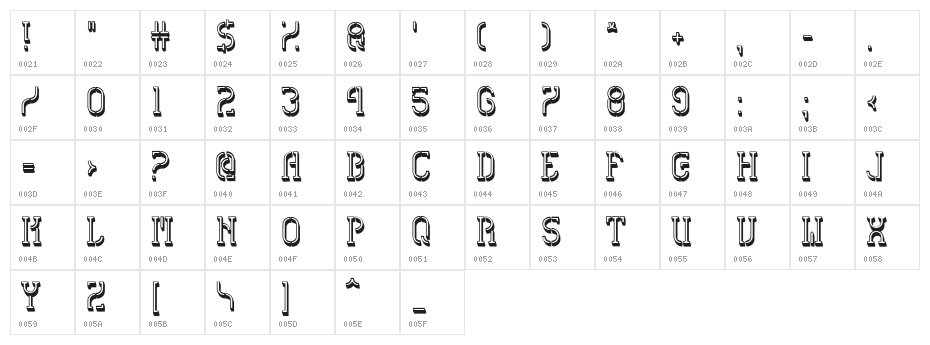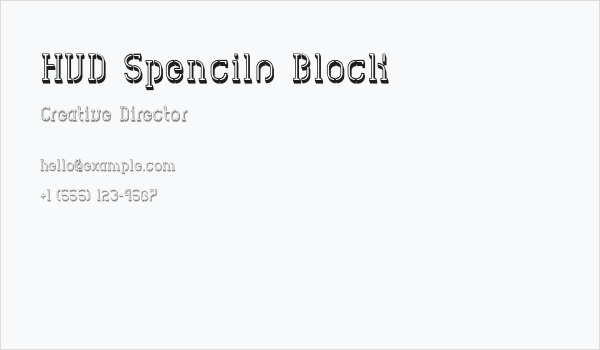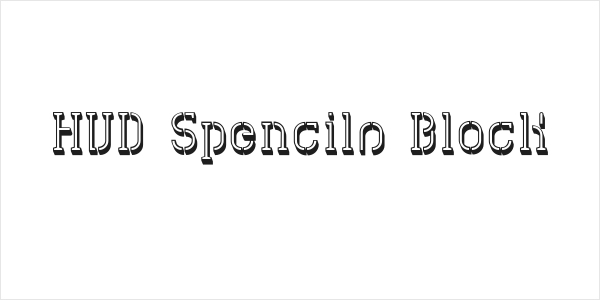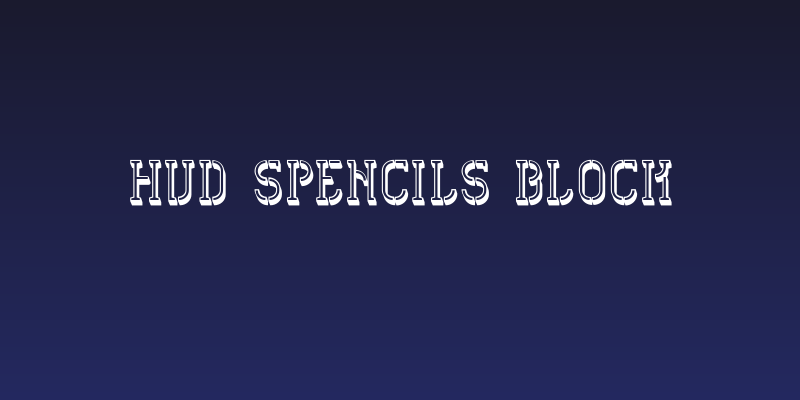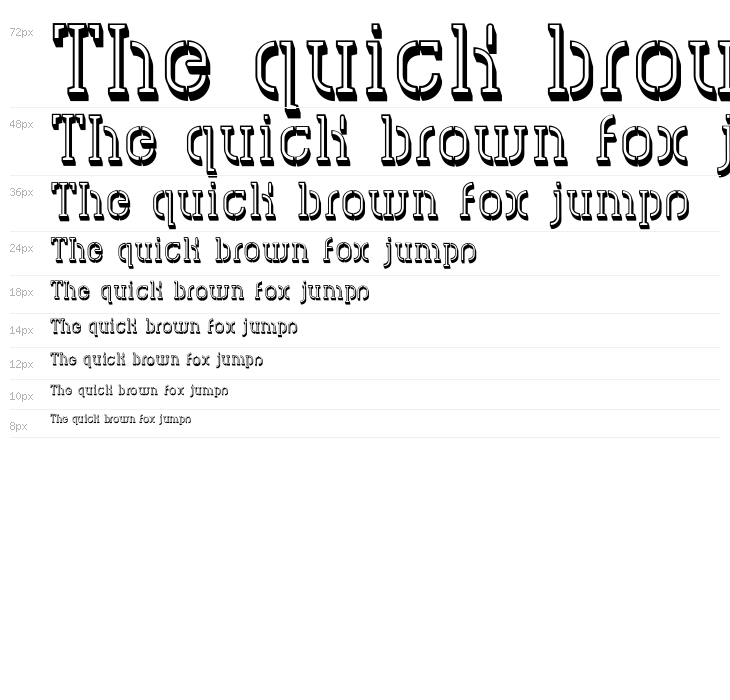
HVD Spencils Block Font
HVD Spencils Block Description
This font features a bold, blocky design with a distinct stencil-like appearance. Each character is crafted with a combination of solid and outlined sections, creating a layered effect that adds depth and dimension. The uppercase and lowercase letters maintain a consistent style, with sharp angles and clean lines. Numbers and special characters follow the same design principles, ensuring uniformity across all glyphs. The font's unique style makes it stand out, offering a modern twist on traditional stencil fonts.